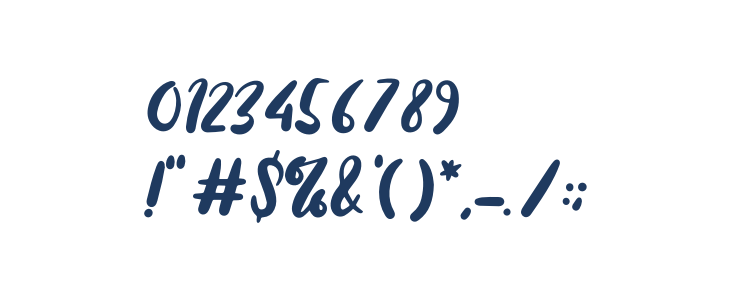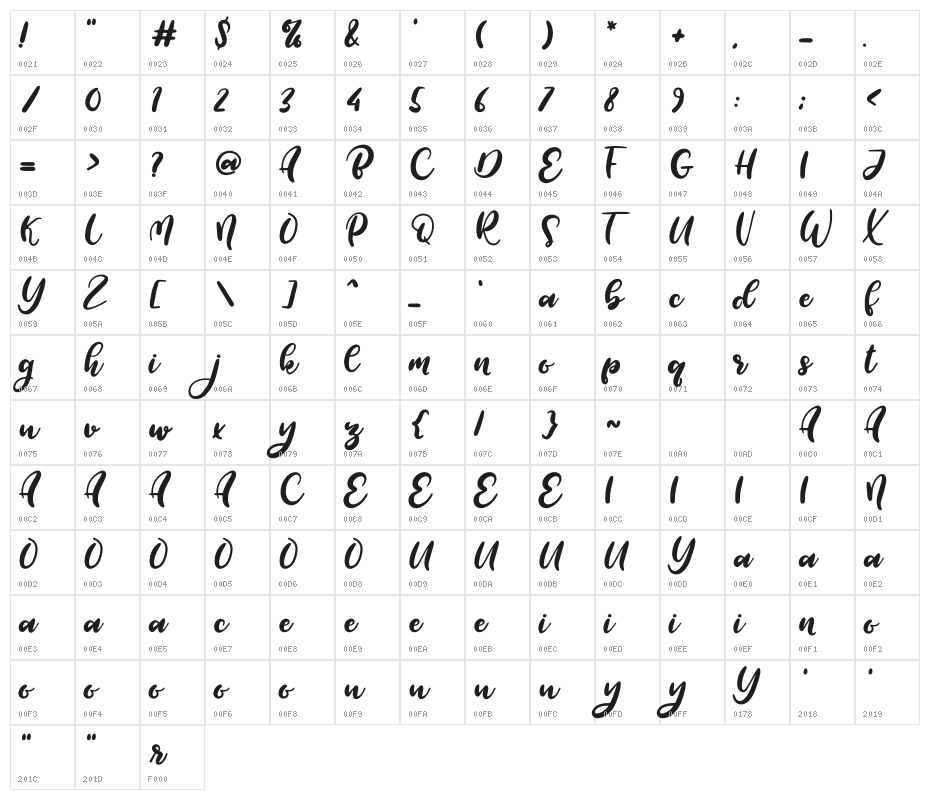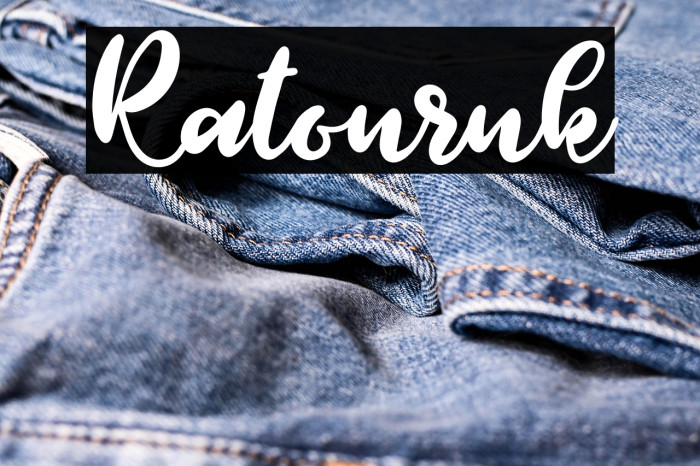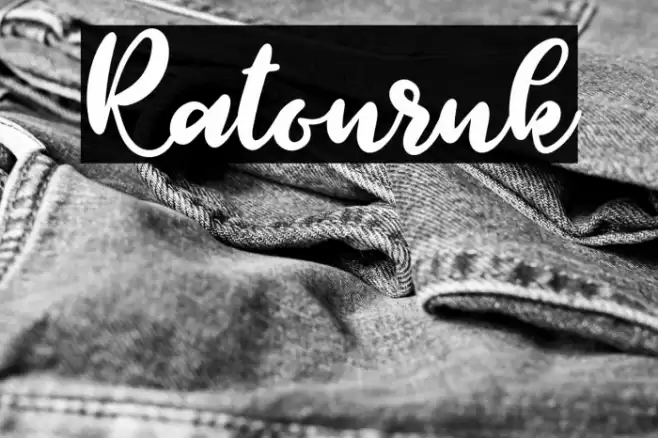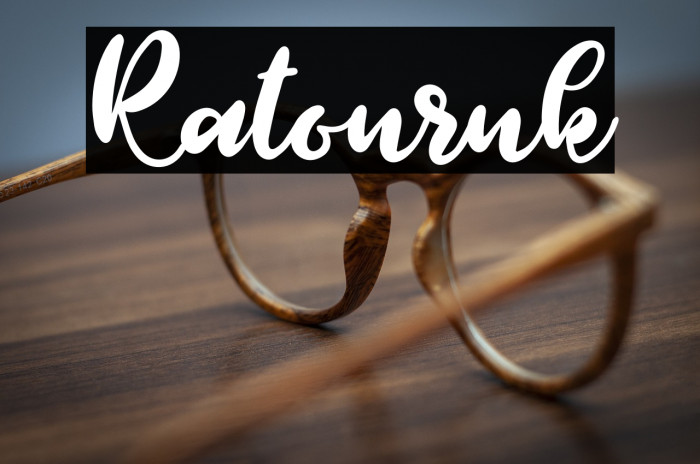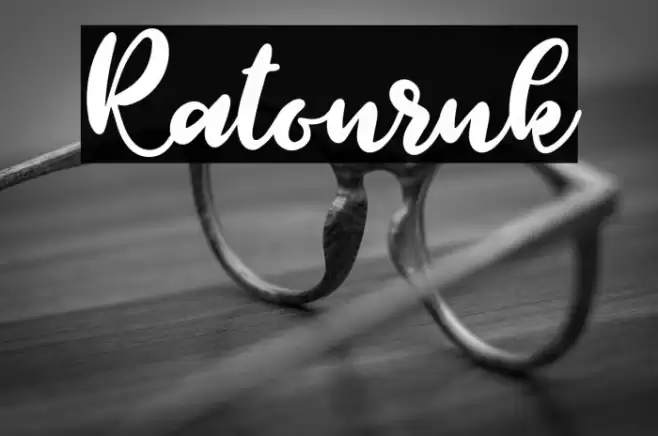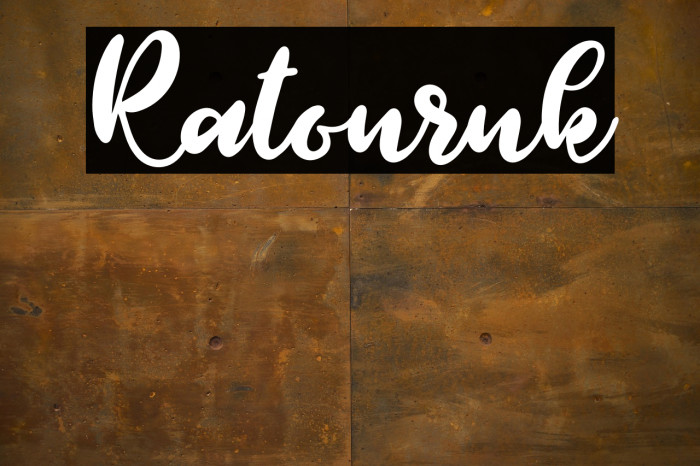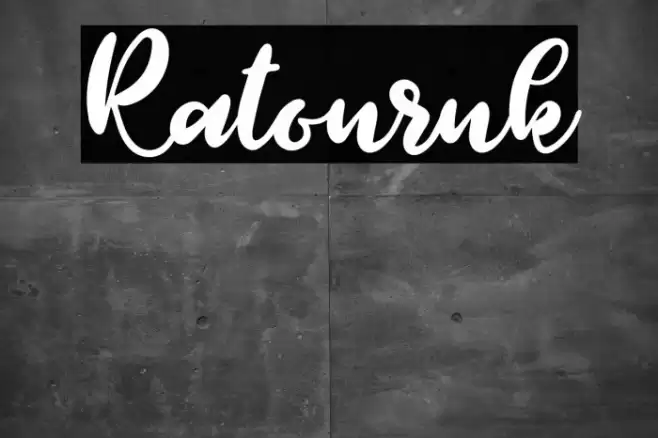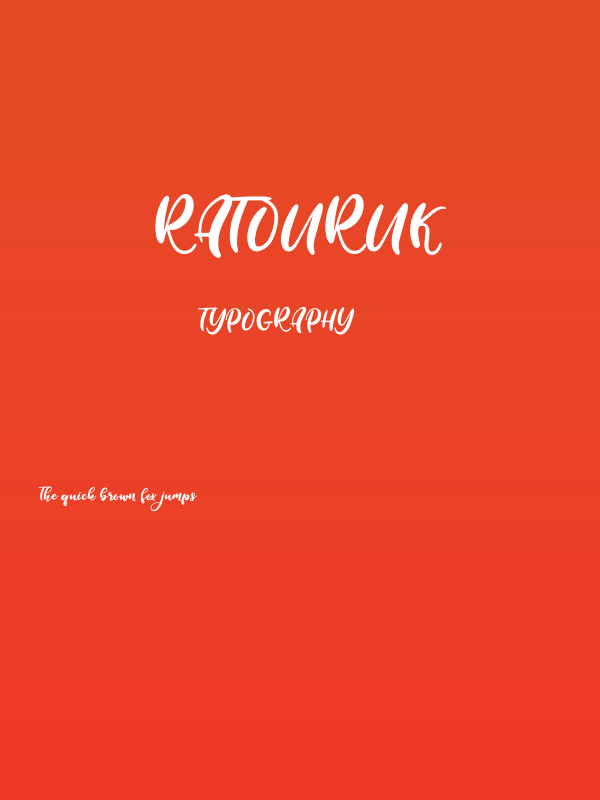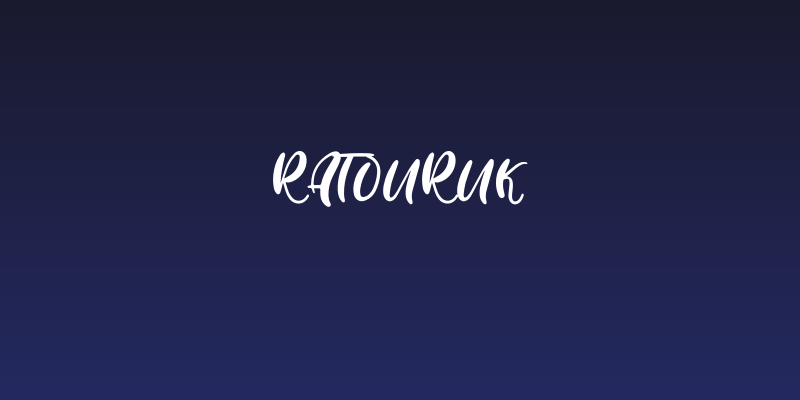
Ratouruk Font
Ratouruk Description
This font features a bold and expressive script style, characterized by its fluid and dynamic strokes. The letters are interconnected, creating a sense of movement and elegance. The uppercase letters are slightly more structured, while the lowercase letters exhibit a playful and artistic flair. The numbers and special characters maintain the same lively and bold aesthetic, ensuring consistency throughout. This font is ideal for projects that require a personal touch, such as invitations, greeting cards, or branding materials. Its boldness ensures readability while maintaining an artistic quality.
| Use Case | Headlines, Logos, Artistic projects |
| Proposed Projects | Ideal for invitations, greeting cards, branding, and artistic projects. |